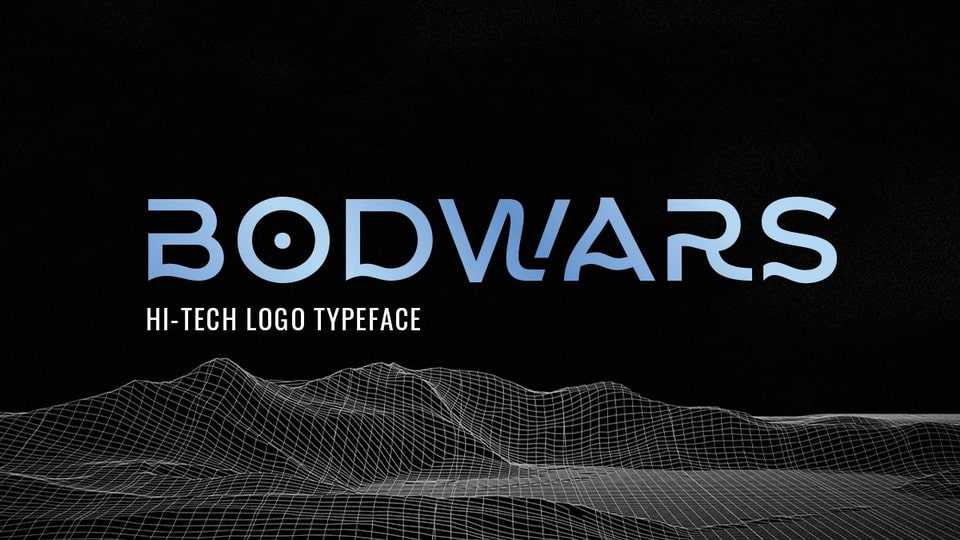
Download Bodwars font, a unique display typeface that will make your designs look hi-tech and modern. Bodwars is the perfect font for any design purpose, especially logotypes and sci-fi movie posters.